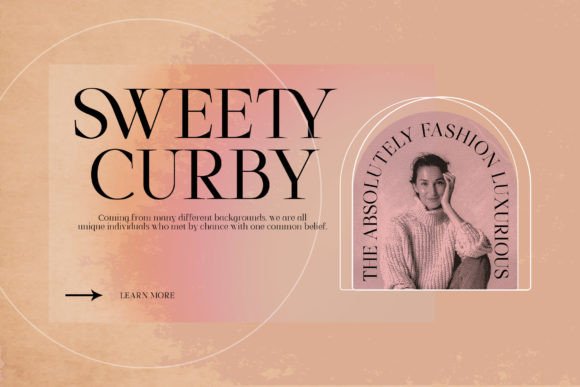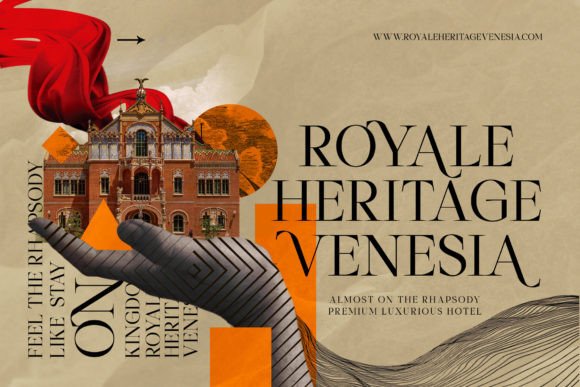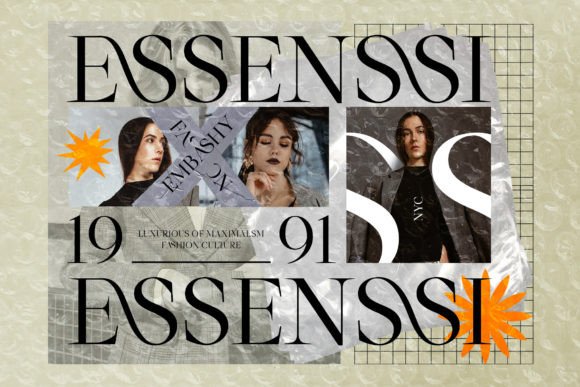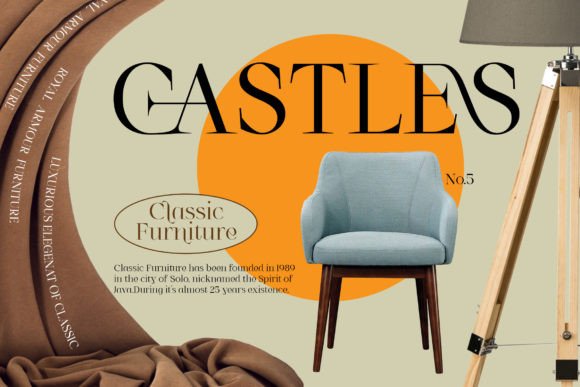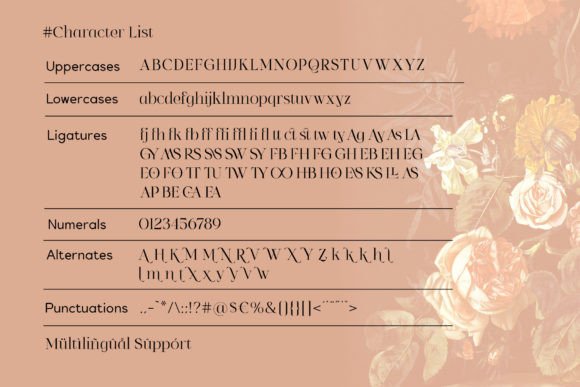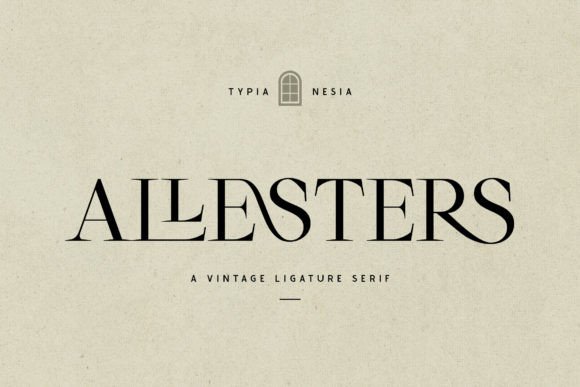
Introducing Allesters Font: Elevate Your Designs with Elegance and Sophistication
In the world of typography, fonts play a crucial role in conveying the tone and personality of a design. For designers and crafters seeking to add a touch of elegance and sophistication to their projects, Allesters Font is an exceptional choice. This beautifully crafted serif font is designed to bring a level of refinement and creativity to a wide range of design applications, from editorial designs to branding and advertising.
The Distinctive Features of Allesters Font
Allesters Font stands out with its classic serif design, complemented by unique ligatures and alternates that give it a distinct and sophisticated look. These special features allow designers to add a personal touch to their work, making it perfect for projects that require a bit of flair and personality. Whether you’re working on a magazine, a novel, or a wedding invitation, Allesters Font provides the versatility and elegance needed to make your design stand out.
Versatility Across Design Projects
One of the key advantages of Allesters Font is its versatility. Its sophisticated yet approachable style makes it suitable for a wide range of design projects, including:
• Magazines and Novels: Add a touch of elegance to your editorial designs with a font that reads beautifully and looks great on the page.
• Wedding Invitations: Make your wedding designs memorable with a font that exudes sophistication and romance.
• Logos and Branding: Create a lasting impression with a unique and memorable brand identity.
• Advertising Design: Stand out in advertising with a font that combines elegance and readability.
This versatility makes Allesters Font a valuable addition to any designer’s toolkit, as it can seamlessly transition between formal and informal designs, adapting to the specific needs of each project.
Adding Creativity with Extra Features
What sets Allesters Font apart is not just its classic elegance but also its extra features, including ligatures and alternates. These features provide designers with the tools to add a creative twist to their designs, making each project unique and visually appealing. With Allesters Font, you can experiment with different styles and expressions, ensuring that your design not only looks professional but also captures the essence of your brand or message.
Why Choose Allesters Font?
For designers and crafters looking for a font that combines elegance, versatility, and creativity, Allesters Font is an excellent choice. Here are a few reasons why:
• Elegant Design: A sophisticated serif font that adds a touch of elegance to any design.
• Versatile: Suitable for a wide range of design projects, from formal to informal.
• Creative Features: Includes unique ligatures and alternates for added creativity.
• Easy to Read: Perfect for body text and headlines, ensuring readability without sacrificing style.
Allesters Font is a sophisticated and elegant serif font that can elevate your design projects to new heights. Its unique combination of classic elegance and creative features makes it a versatile tool for designers and crafters. Whether you’re working on a magazine, a wedding invitation, or a brand identity, Allesters Font provides the perfect blend of sophistication and creativity. By incorporating Allesters Font into your design projects, you can ensure that your work stands out with a touch of elegance and professionalism.
Discover the potential of Allesters Font and bring a new level of sophistication and creativity to your designs. With its distinctive features, versatility, and elegant design, Allesters Font is set to become your go-to choice for a wide range of design applications.